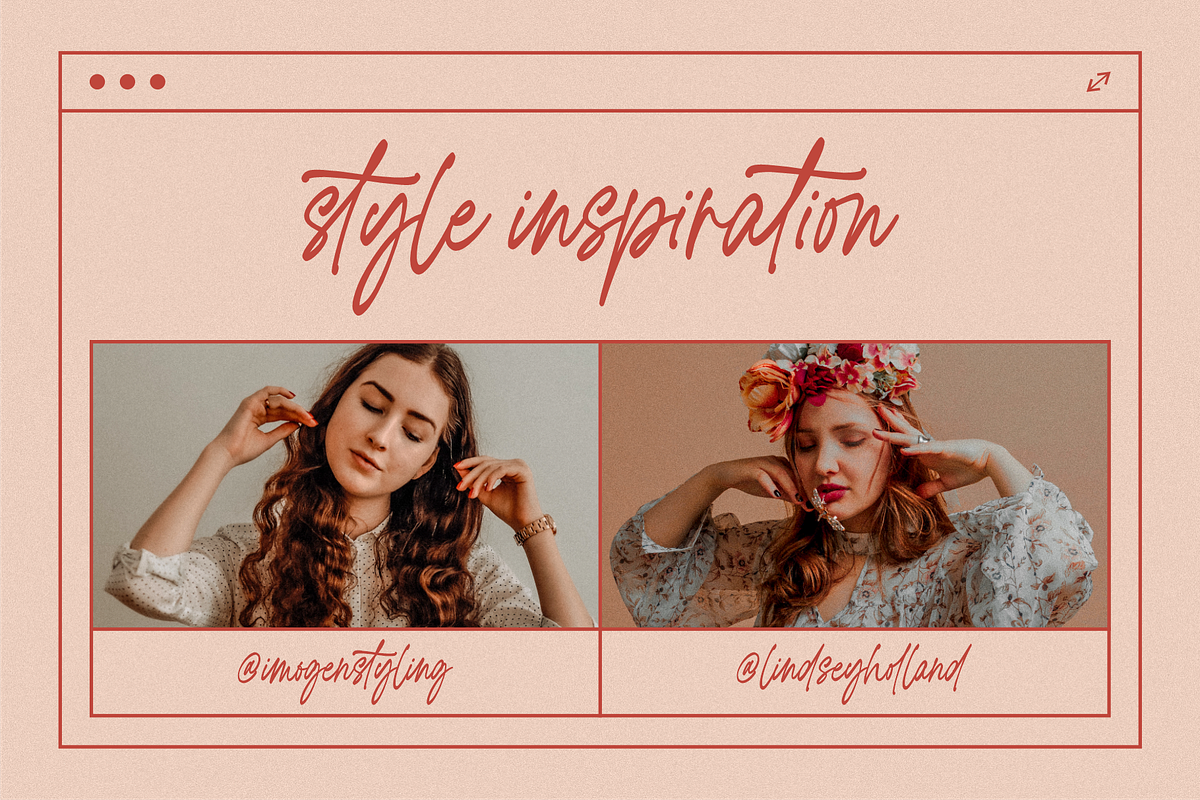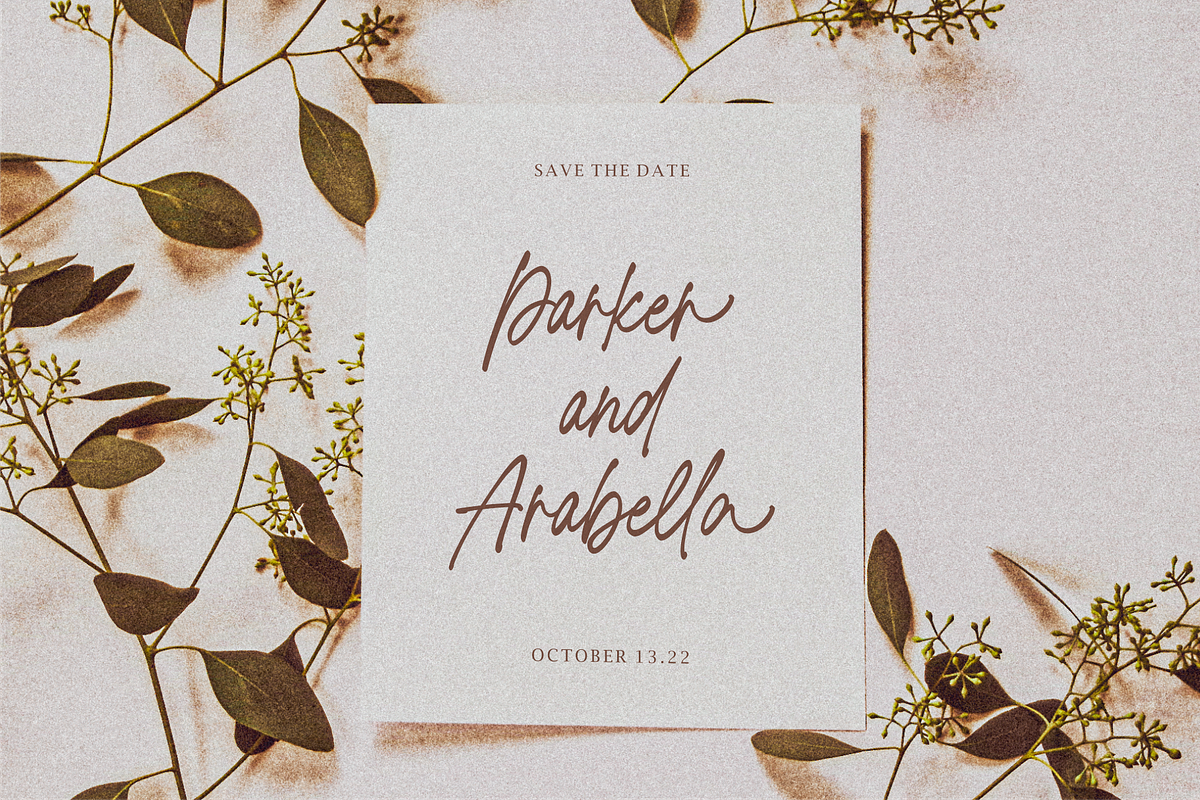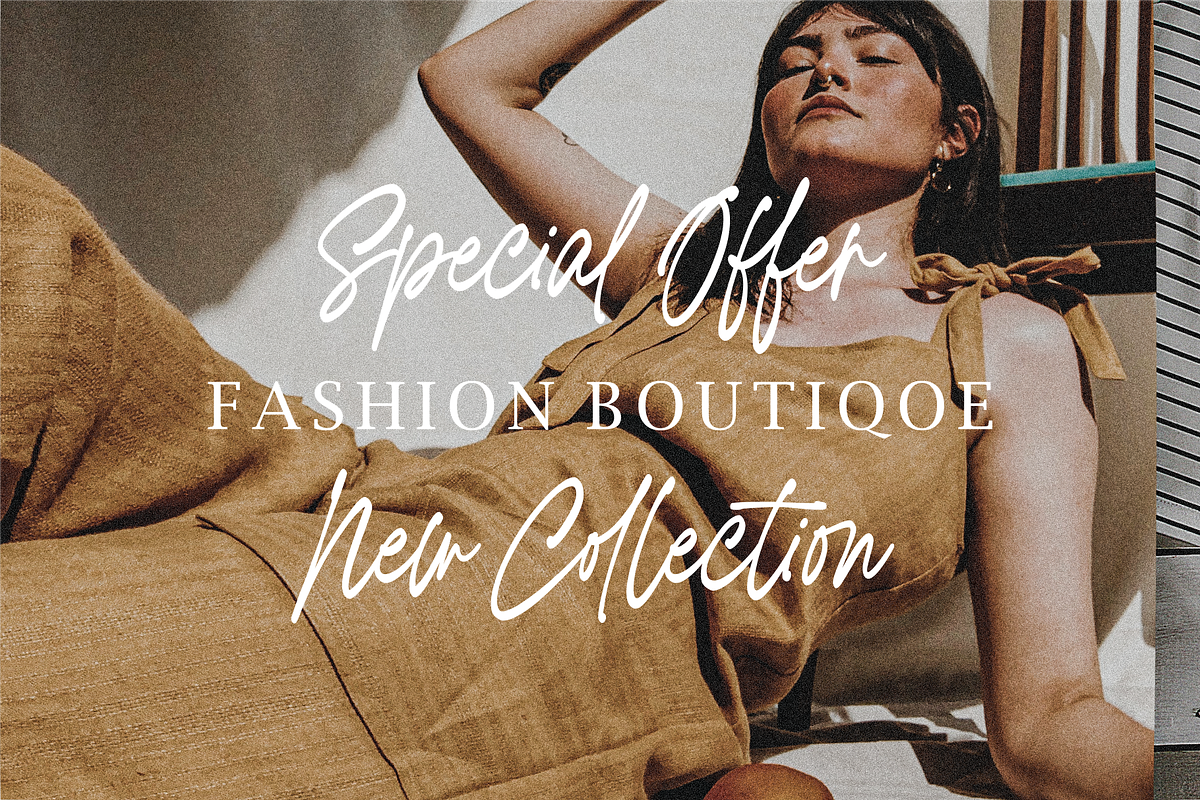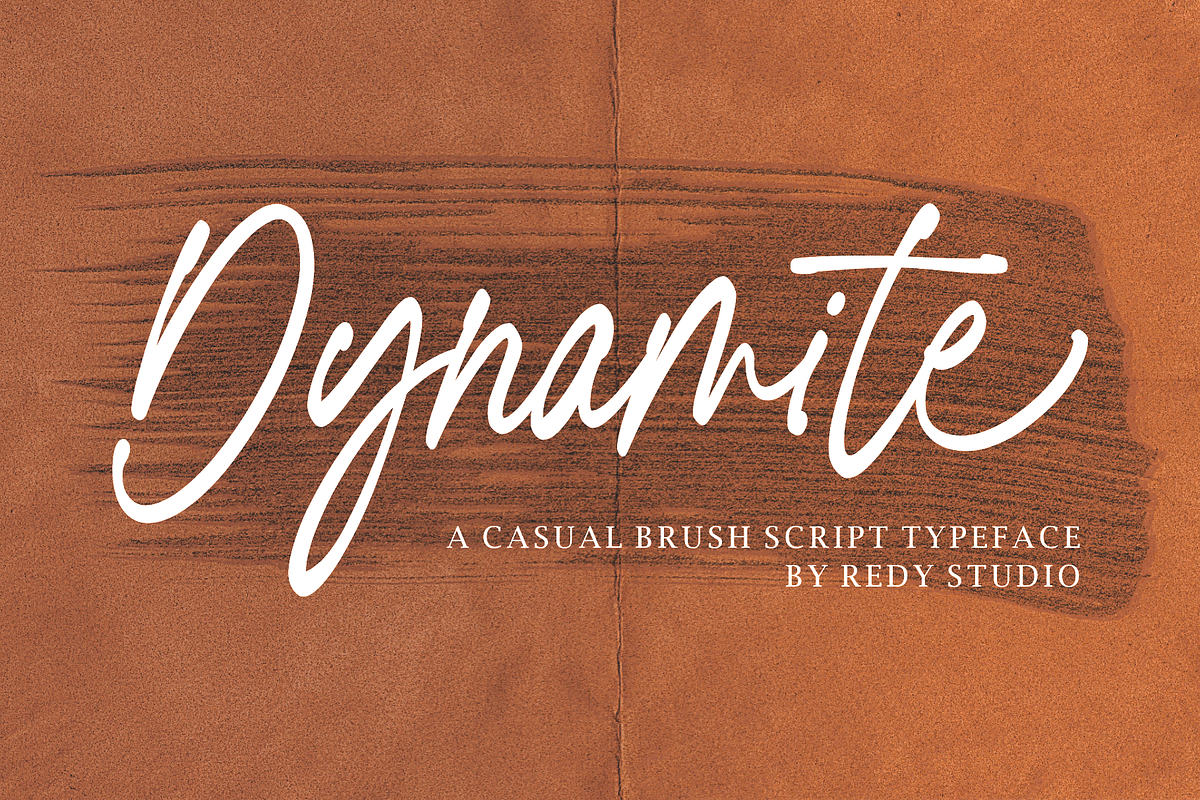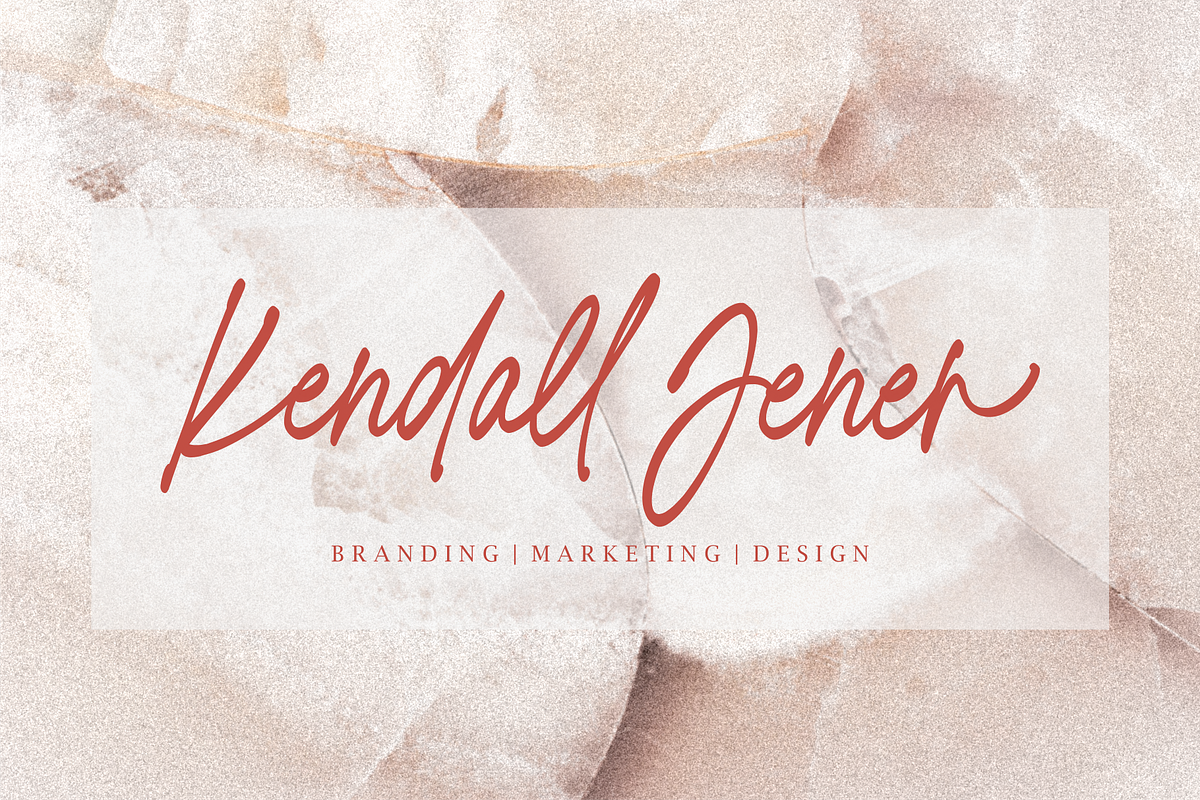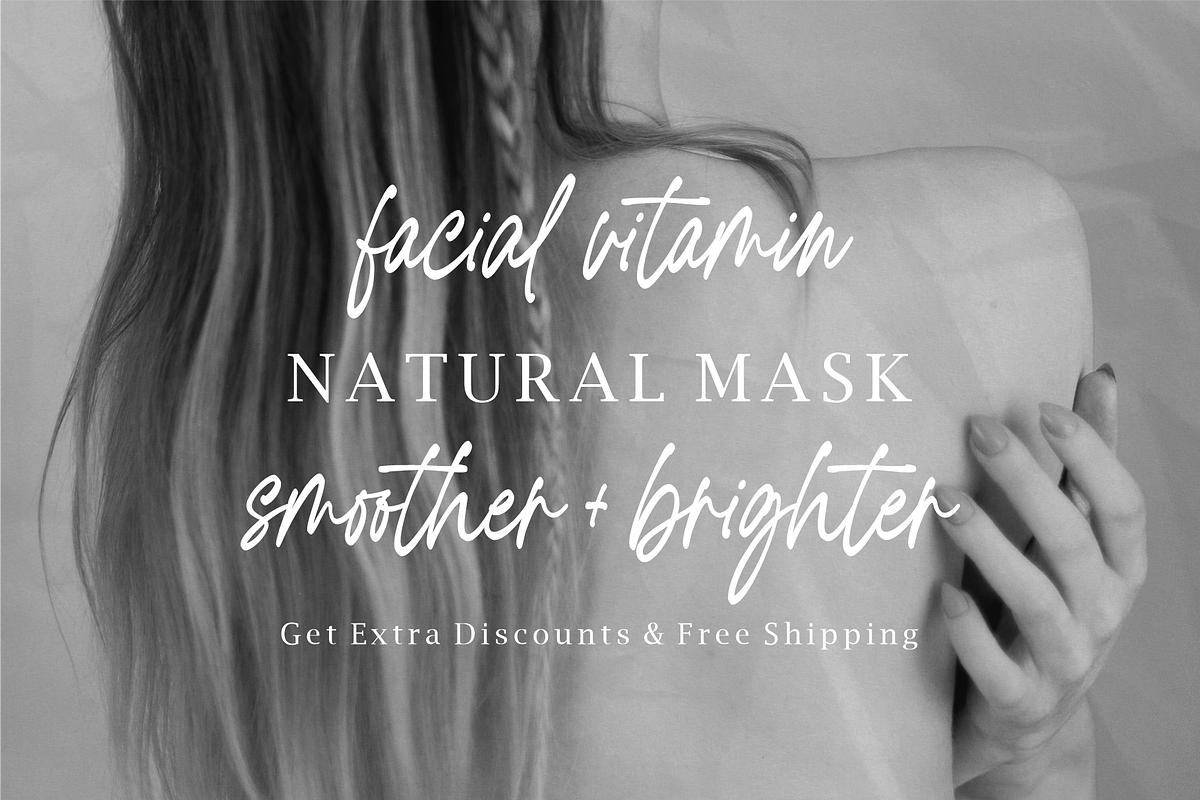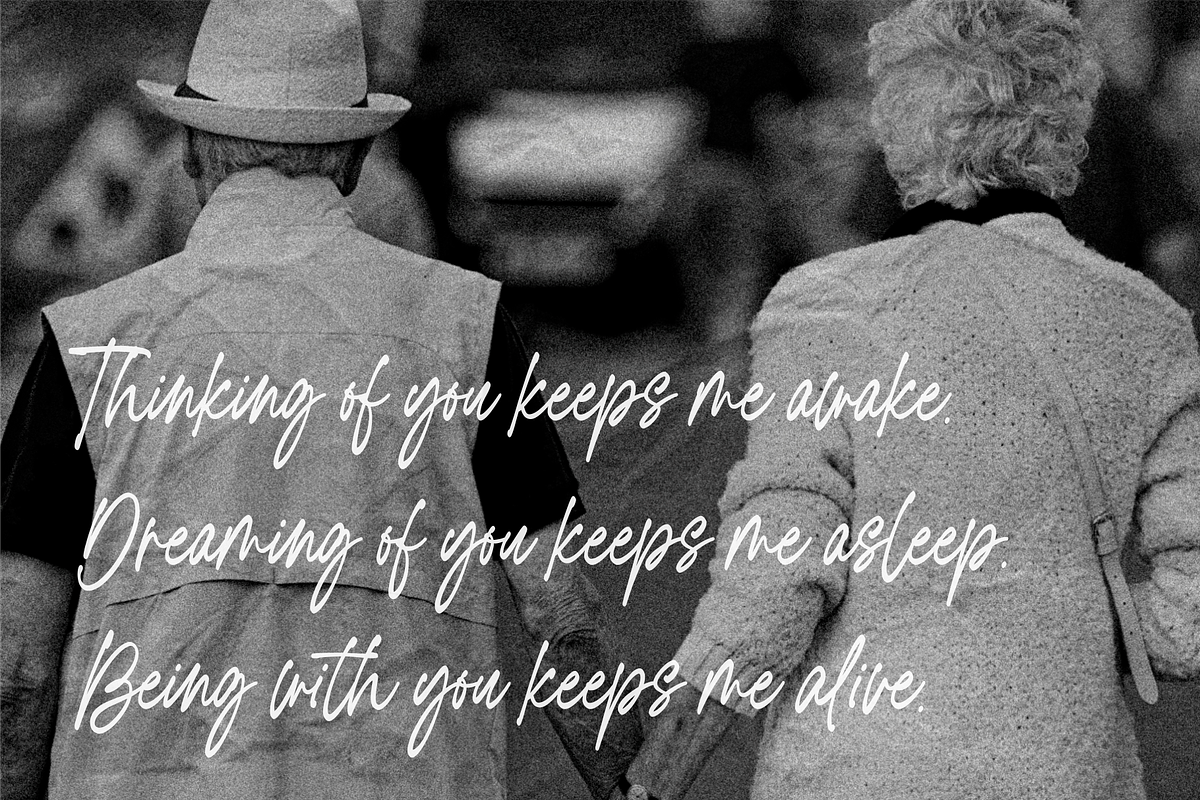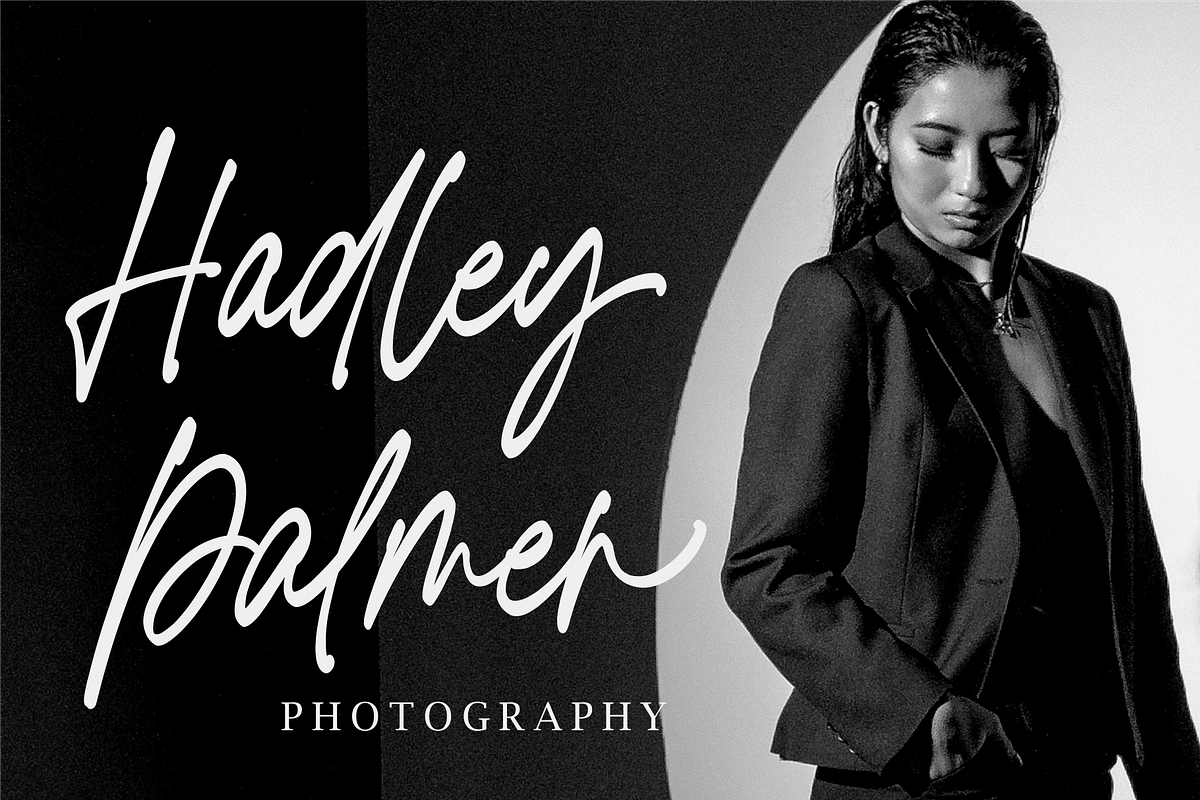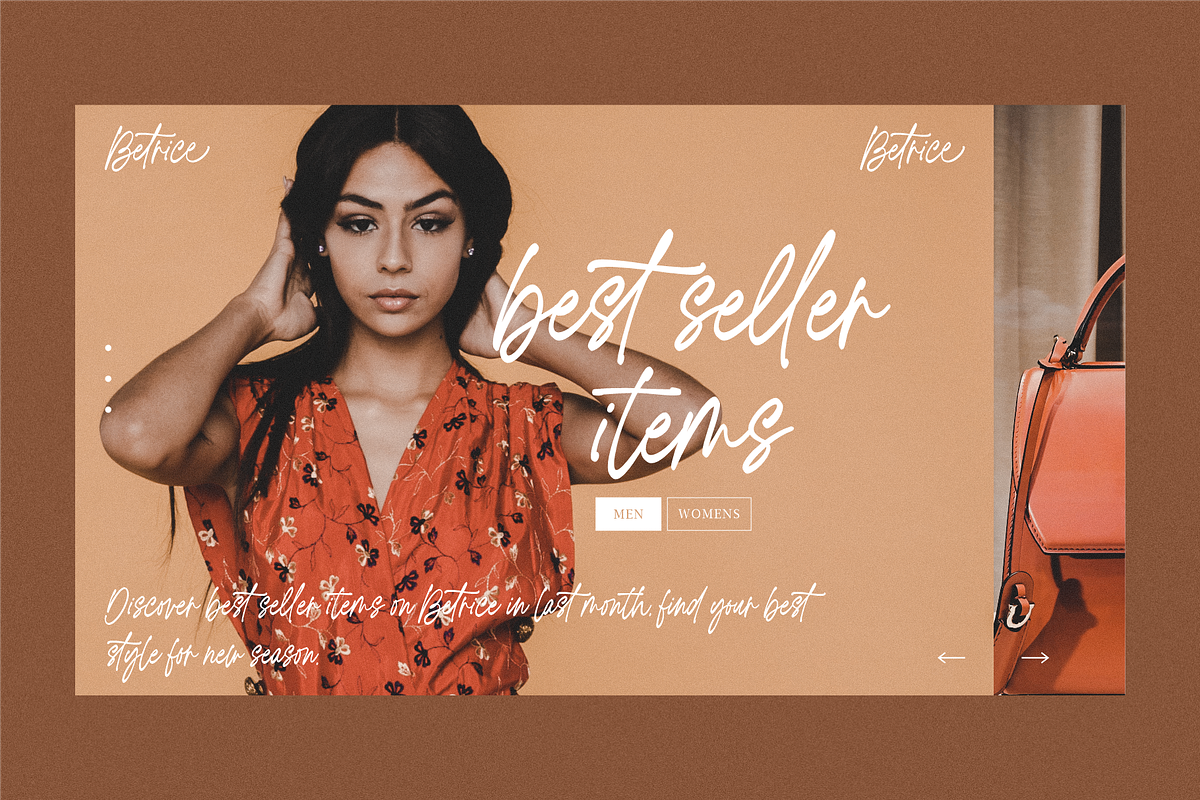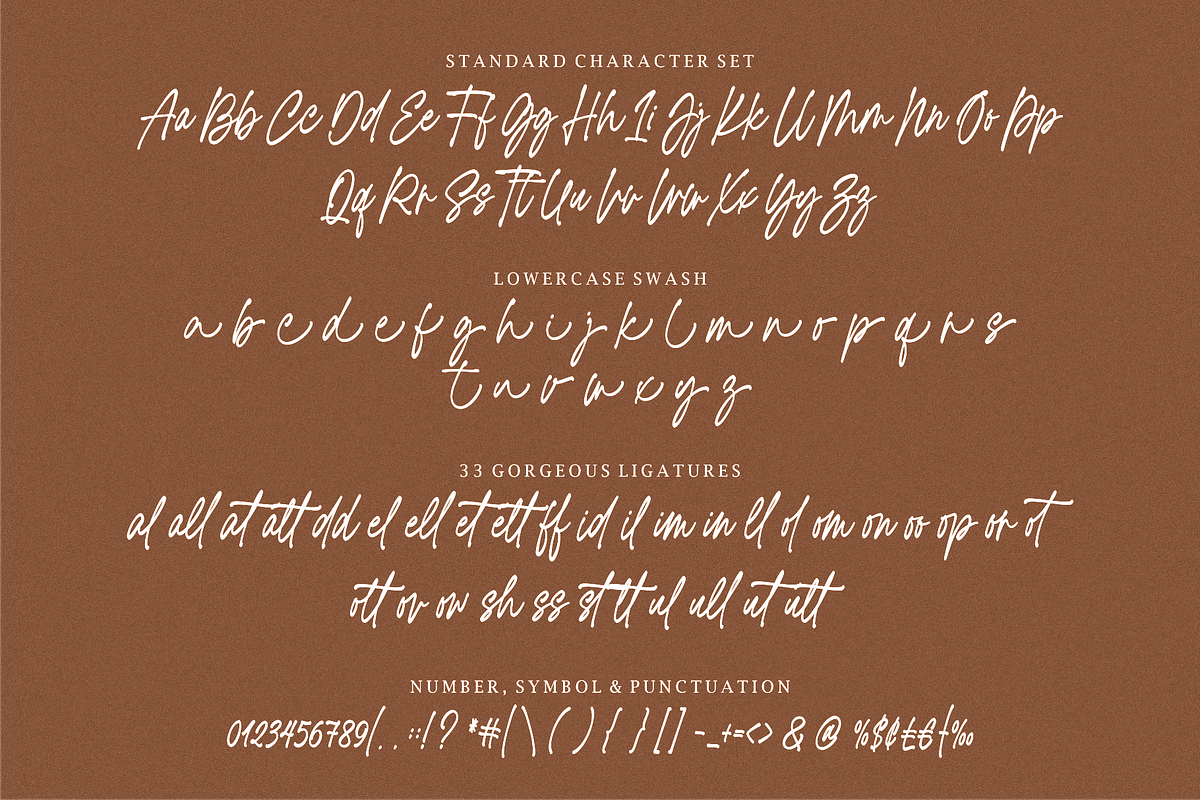
Dynamite - Casual Brush Script
Dynamite is a bold, handwritten font ready to make a big impression. Dynamite is drawn with real brush markers, creating a truly authentic handmade look. perfect for unmissable display text, logos, handwritten quotes, product packaging, and more!
In addition to the full set of upper & lower case characters, Dynamite also includes a set of lower case swash characters - The lowercase swashes are carefully chosen so that they fit perfectly with the existing letters. So you can use them however you like, wherever you like!
Dynamite also includes 33 ligatures that will connect letters smoothly - helping to make the words flow more naturally. Use the bold, unmissable Dynamite today!